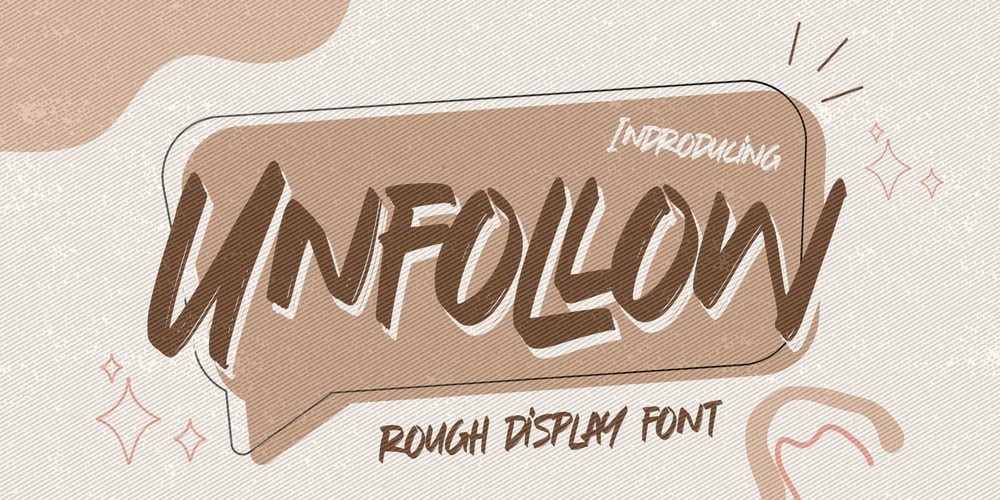
Unfollow
Unfollow font
Unfollow Font Family was designed by Abdul Malik Wisnu, Anang Fibriyanto and published by Gassstype. Unfollow contains 1 styles and family package options. Here comes a New font,Introducing Unfollow is Rough Display Font is a Authentic Style and classy style, this font is great for your creative projects such as watermark on photography, and perfect for logos & branding, invitation,advertisements,product designs, stationery, wedding designs,label ,product packaging, special events or anything that need handwritting taste.Unfollow a natural Hand Drawn feel. This handmade font will make your design has a beautiful natural touch for each details. It is perfect for any design project as Invitation,logo, book cover, craft or any design purposes,photos, photography overlays, signs, window art, scrapbooking, tags and so much more!This font is PUA encoded which means you can access all of ligatures and Alternate glypsh.